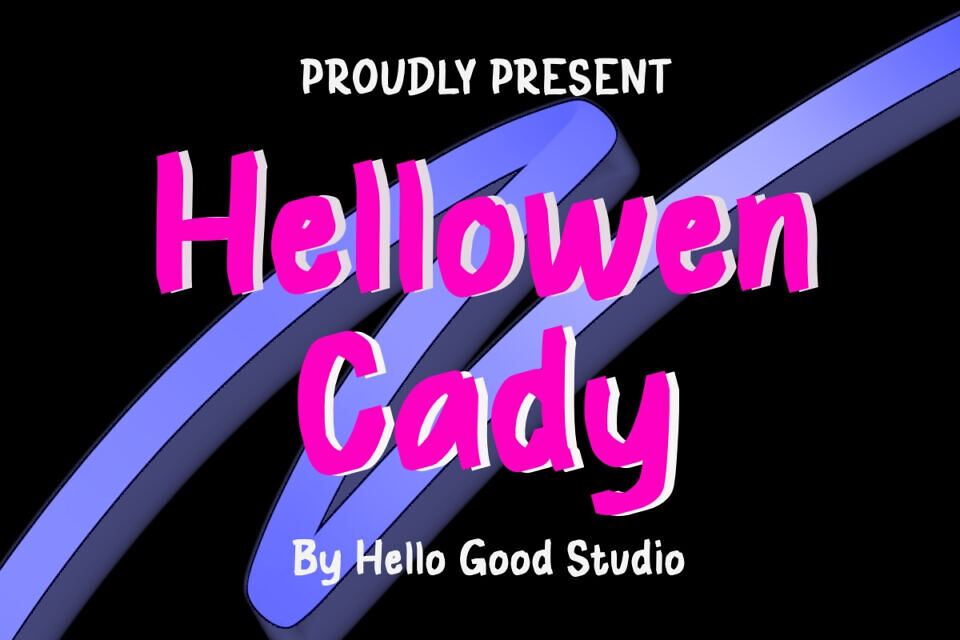
Hellowen Cady Font
Hellowen Cady is a bold, fun, and vibrant display font perfect for eye-catching designs. With its thick, handwritten style and dynamic retro/80s aesthetic, it’s ideal for Halloween graphics, party invitations, posters, and merchandise. This typeface stands out with its electric color potential and playful curves, making your next spooky or quirky project truly pop.